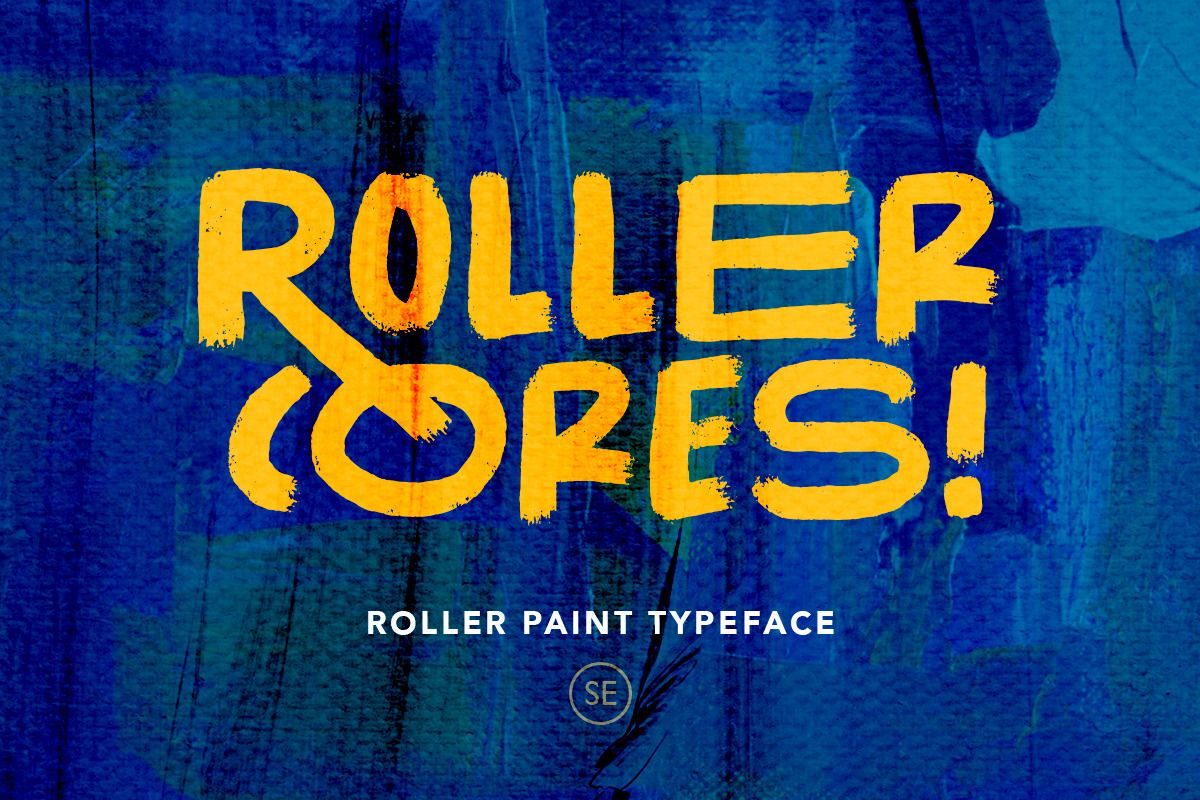
Introducing, Roller Cores - a paint roller typeface!
Roller Cores is a paint roller inspired font. This font will give you roller and dry brush vibes. Suitable for any project. With unique characters make this font more special!